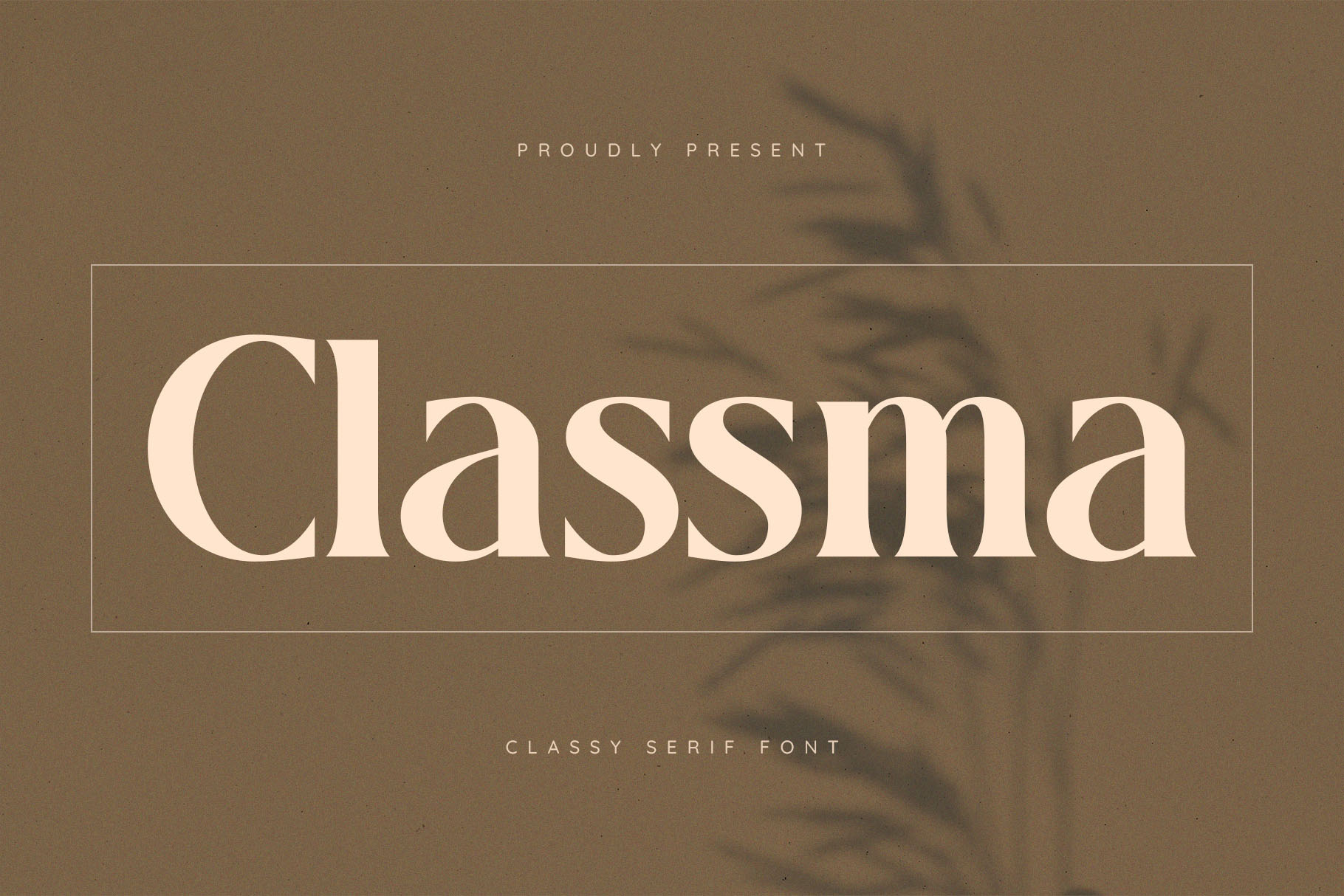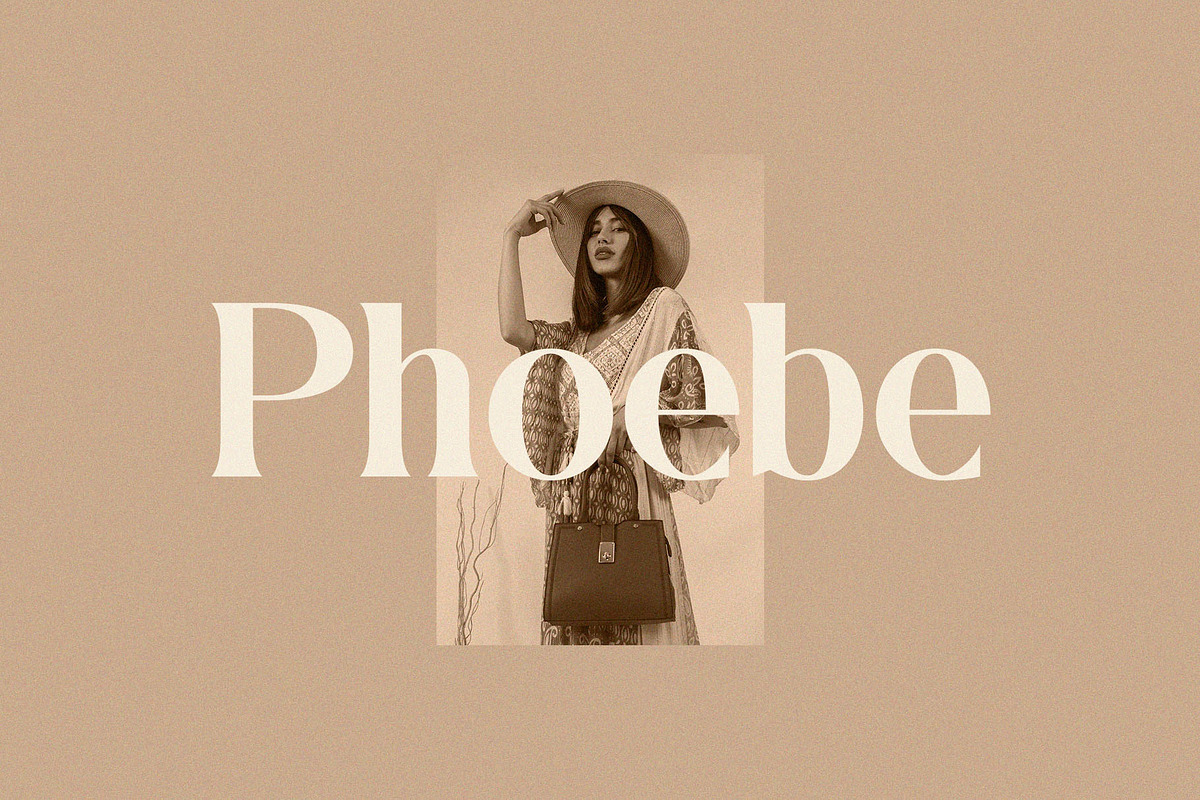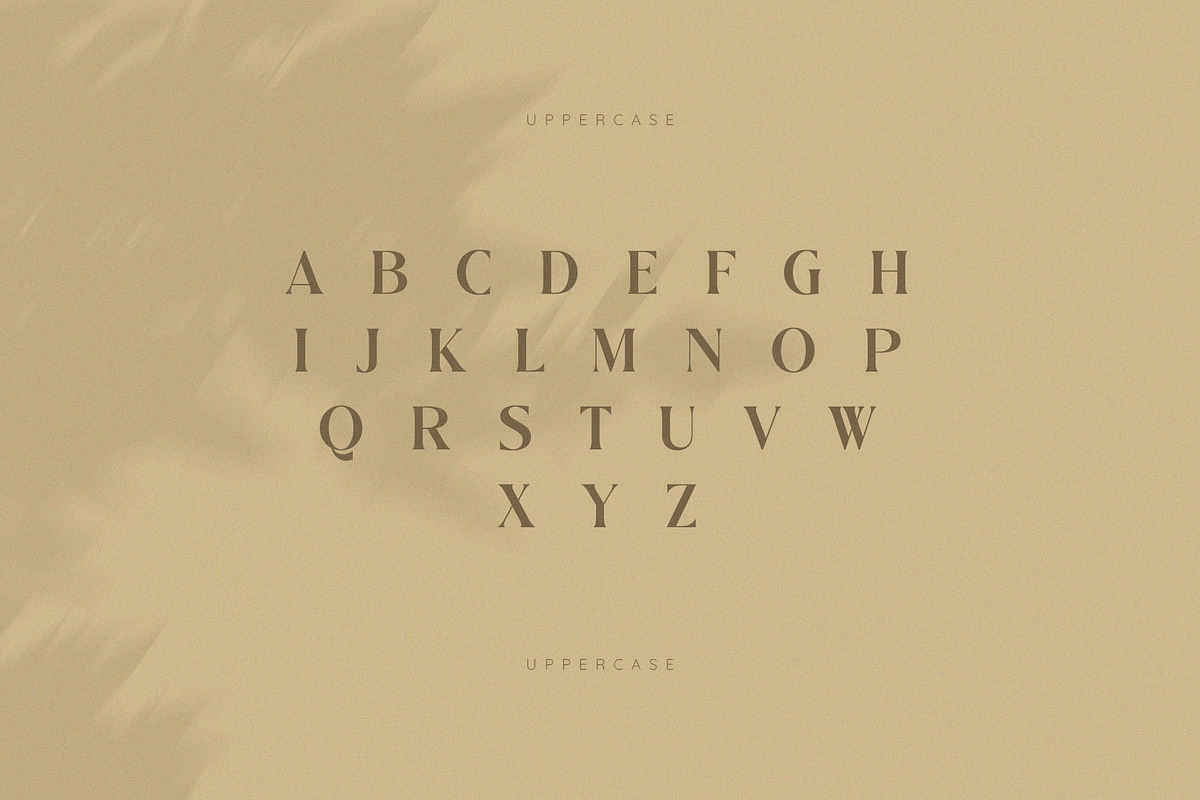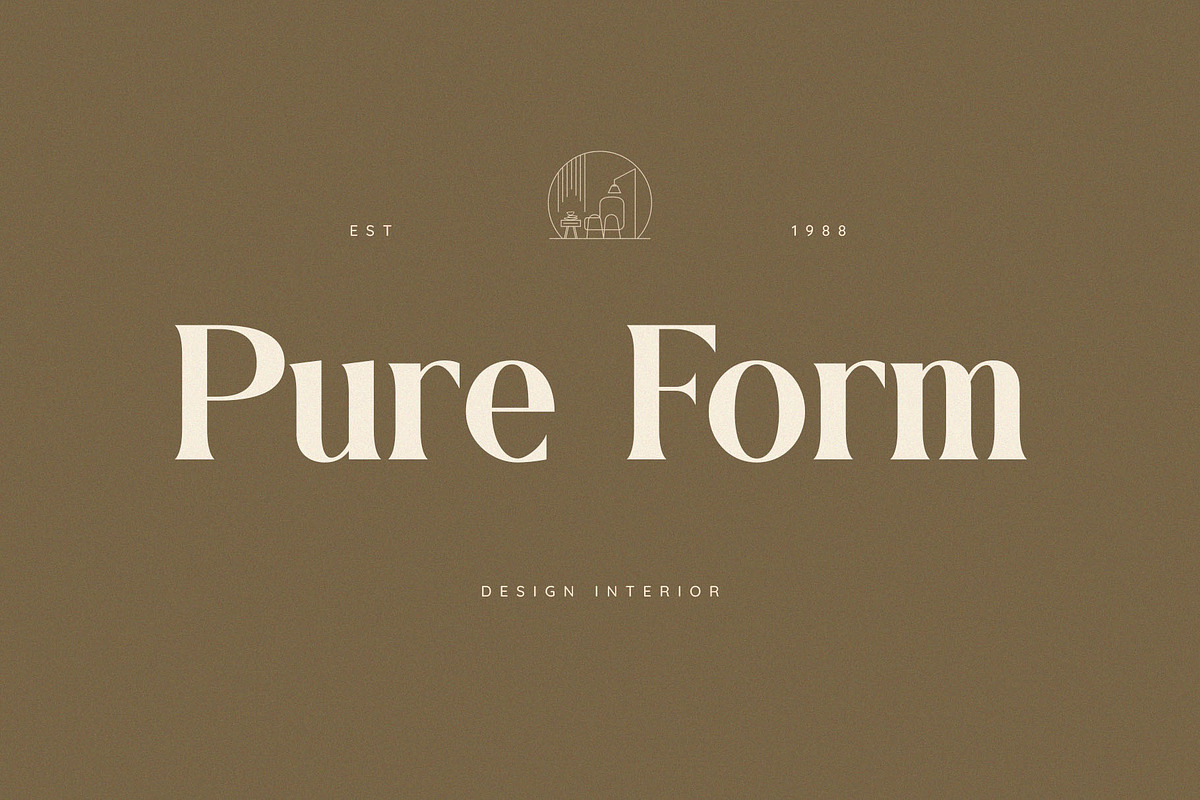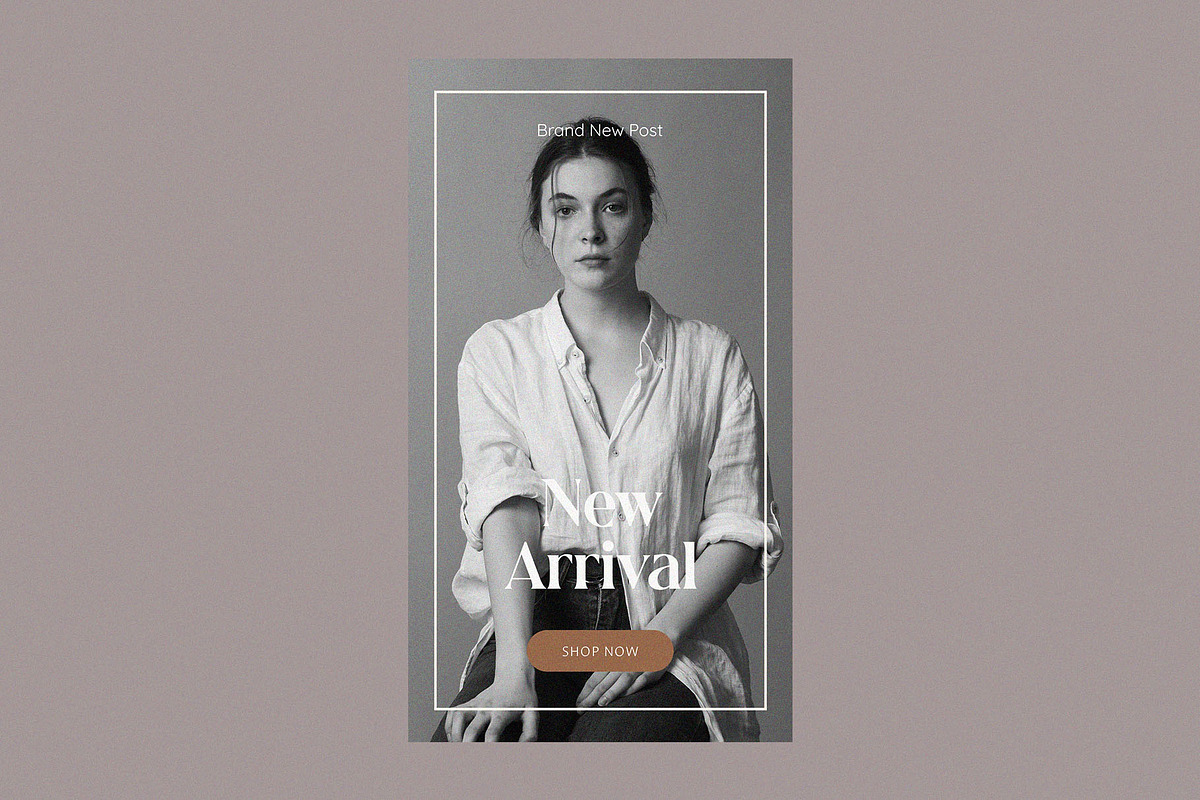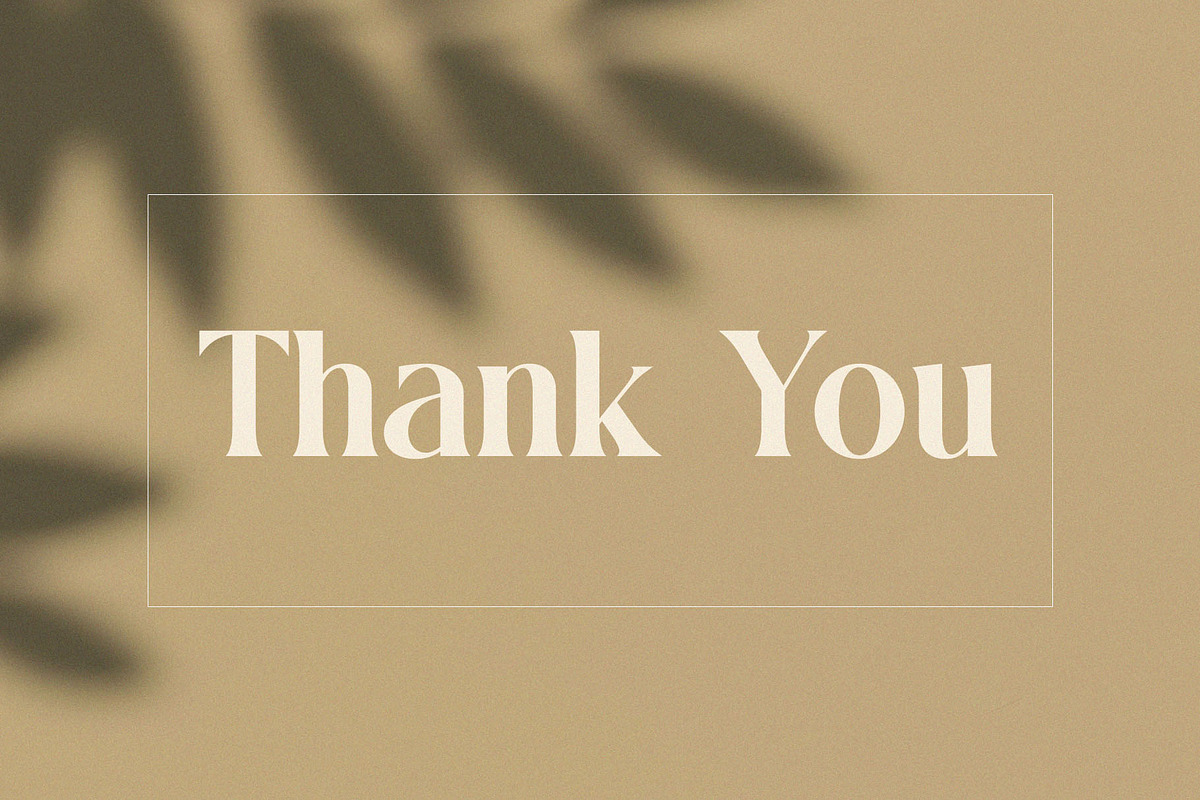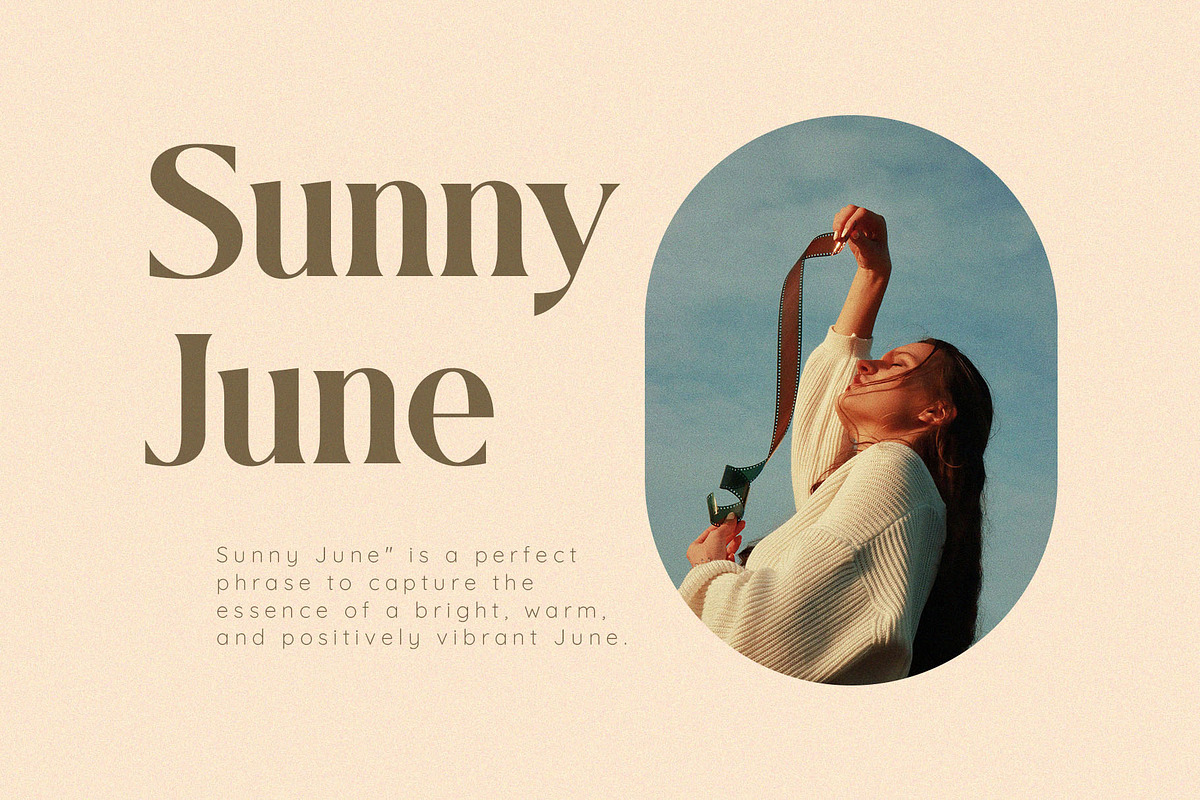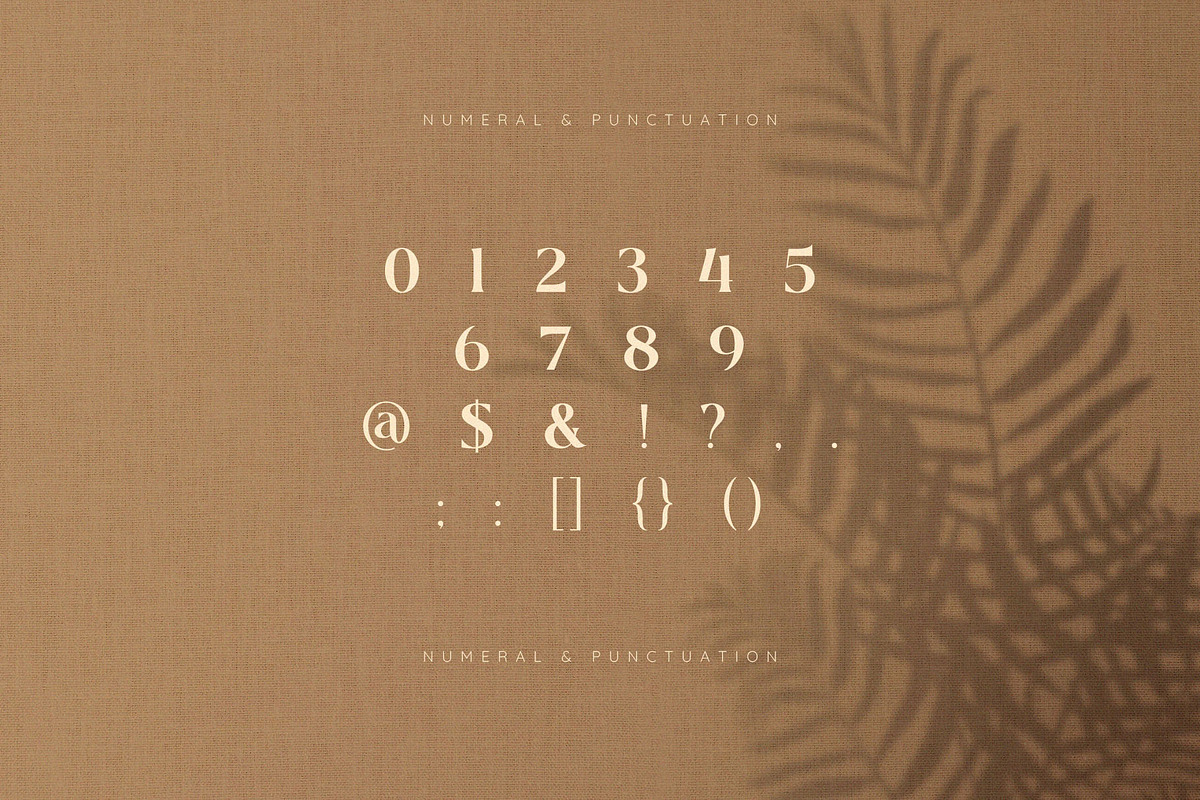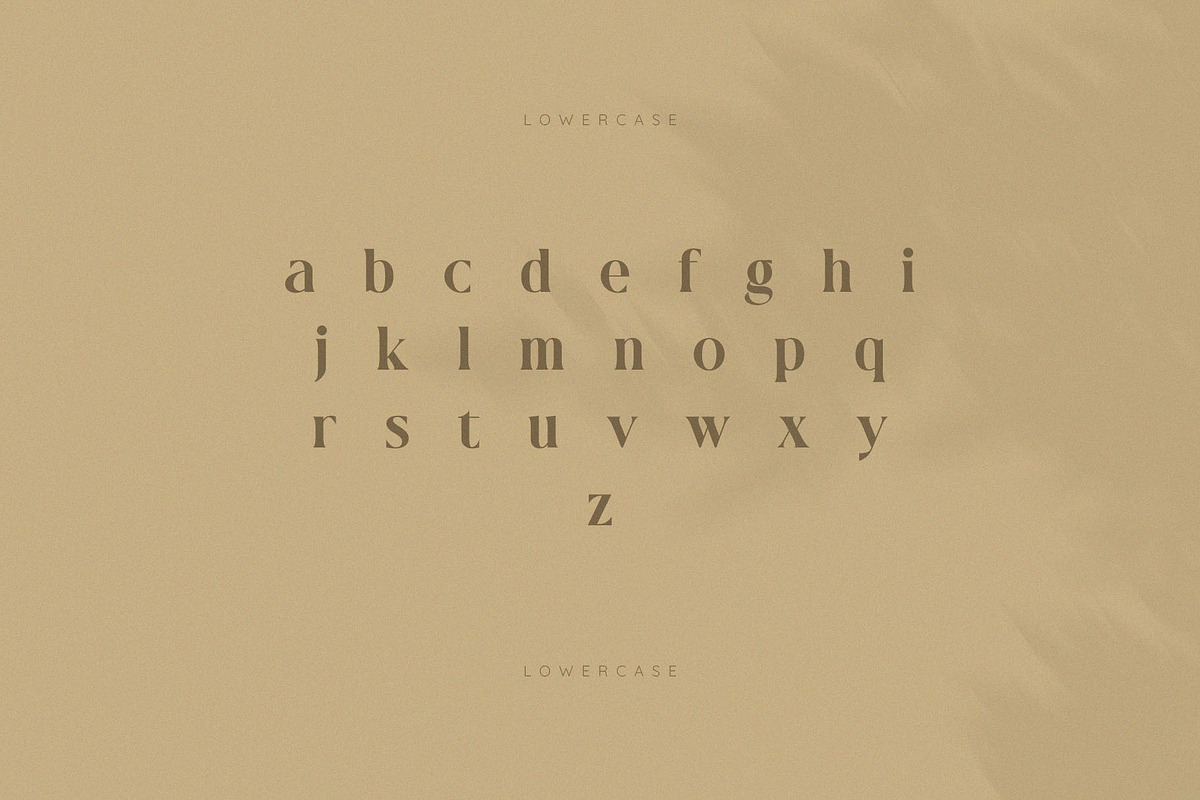
Classma – Modern Classy Serif Font
Classma – A Refined Serif Font for Premium Branding and Editorial Excellence
Proudly presenting Classma, a high-contrast serif font designed to bring sophistication and clarity to your visual language. With its sharp serifs, elegant proportions, and modern flair, Classma offers the perfect balance between timeless tradition and contemporary aesthetics.
Classma is crafted for designers who seek a typeface with character—ideal for high-end branding, fashion editorials, luxury packaging, and premium web typography. Each letterform is carefully designed to convey elegance, while ensuring excellent readability across all platforms.
Font Highlights:
- Elegant serif font with modern contrast
- Perfect for logos, magazines, headlines, and upscale branding
- Smooth curves paired with strong verticals for a striking appearance
- Well-kerned and versatile in both large and small sizes
- Pairs beautifully with minimalist sans-serifs
Whether you're designing for a luxury skincare brand, a boutique magazine, or a curated product catalog, Classma elevates your message with confidence and grace.
Bring timeless beauty and editorial precision to your next project with Classma Serif—where classic charm meets modern design